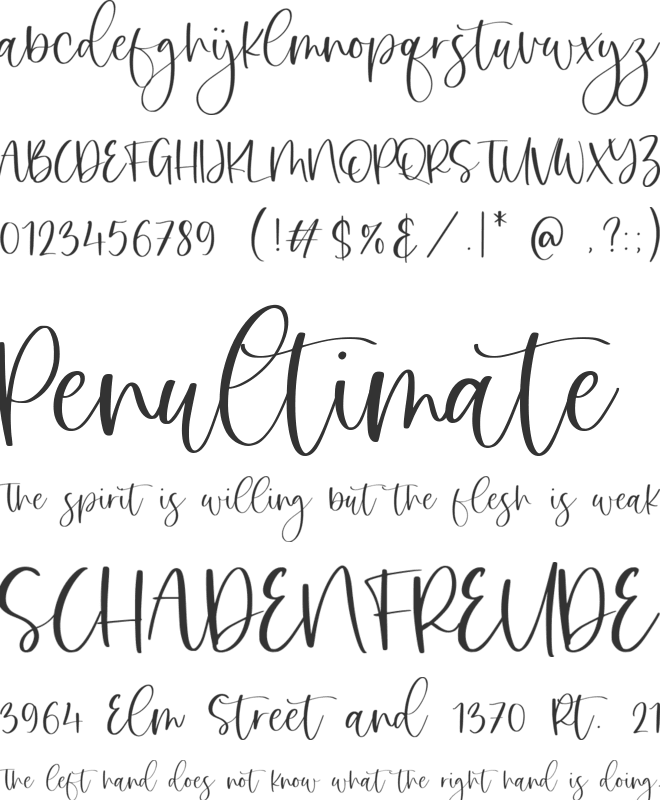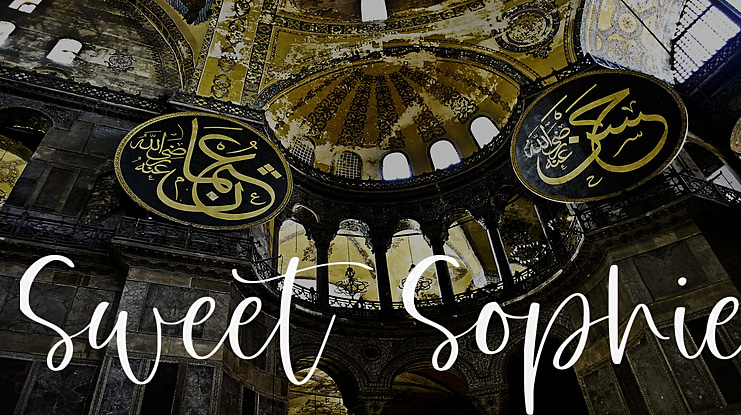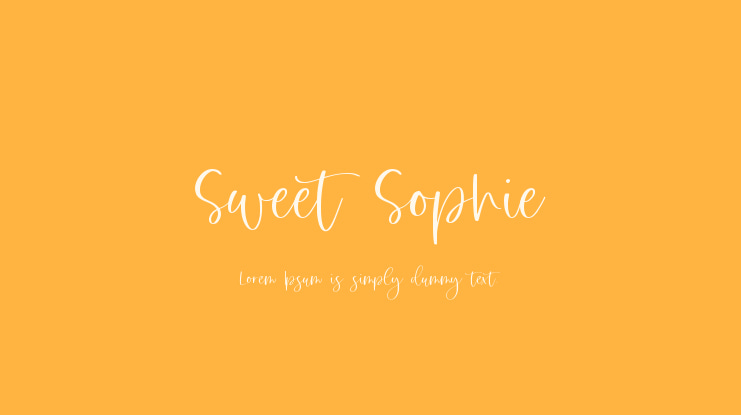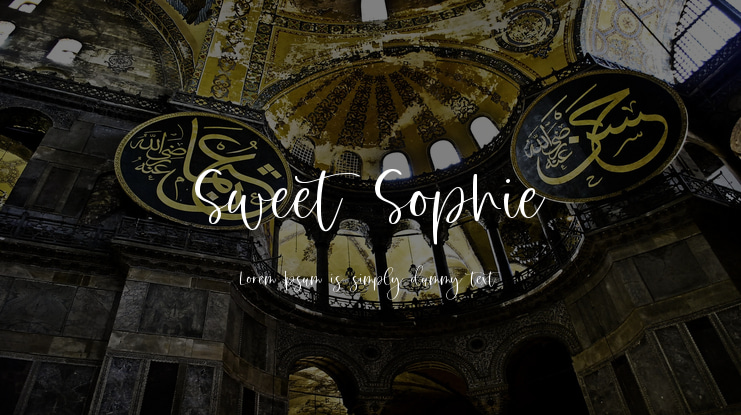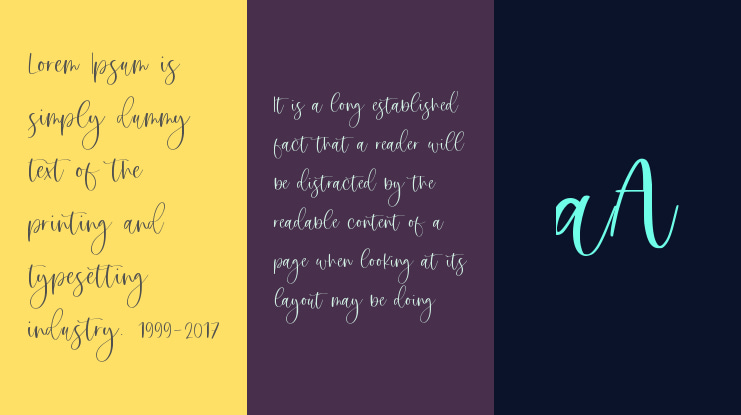
Sweet Sophie Font
Proudly Present, Sweet Sophie Font.
Sweet Sophie is a Beautiful Handwritten Font.
Sweet Sophie is perfect for product packaging, branding project, megazine, social media, wedding, or just used to express words above the background.
Sweet Sophie font preview